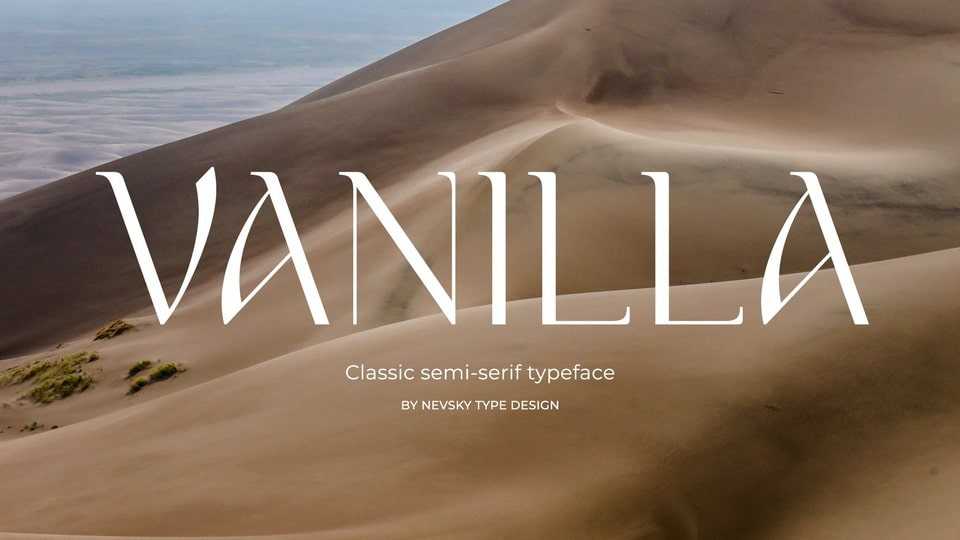
Download NT Vanilla font, an elegant and sophisticated classic semi-serif typeface. NT Vanilla needs to be in your collection and is perfect for your next design project.
Designer: Artem Nevsky